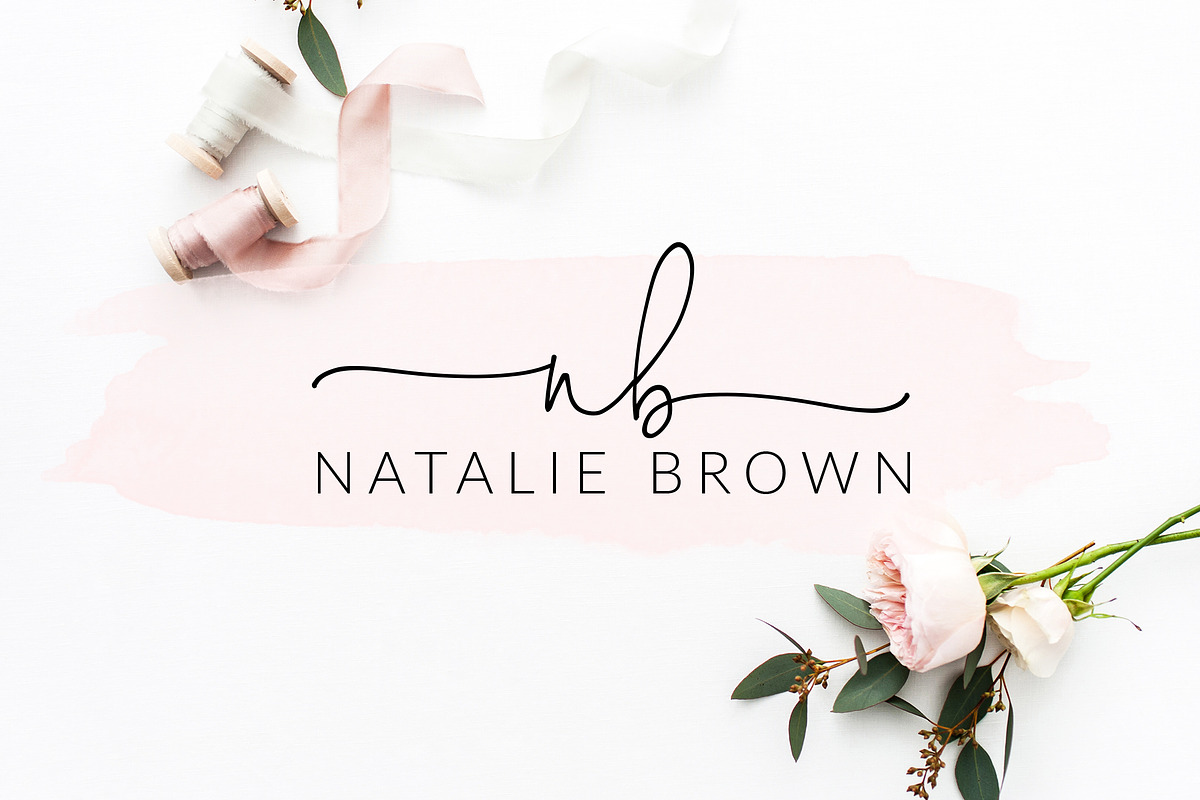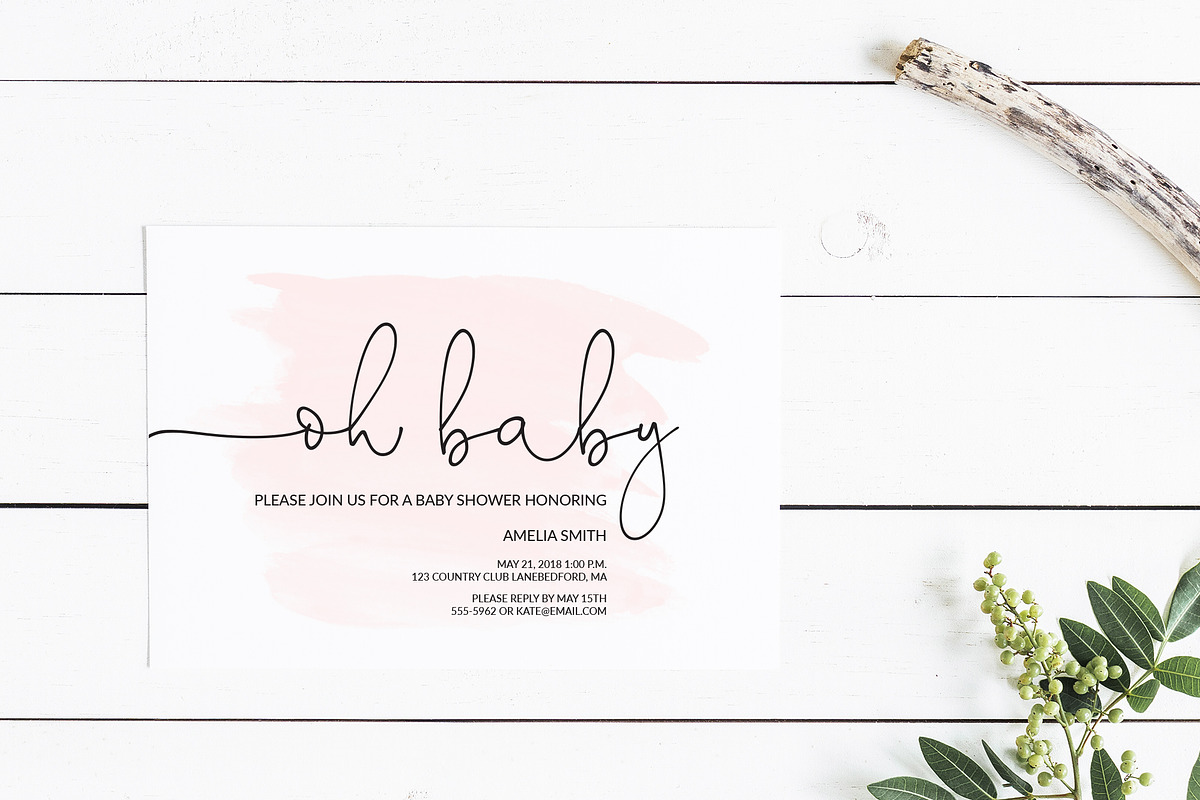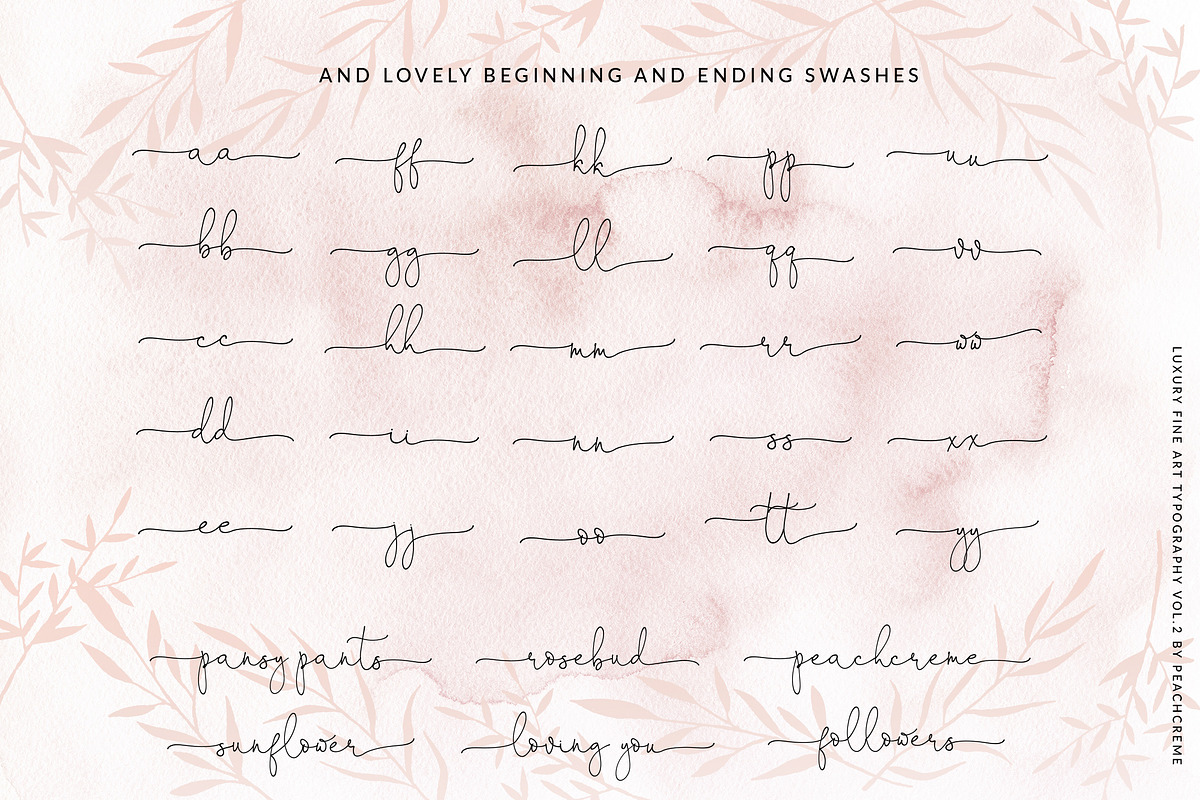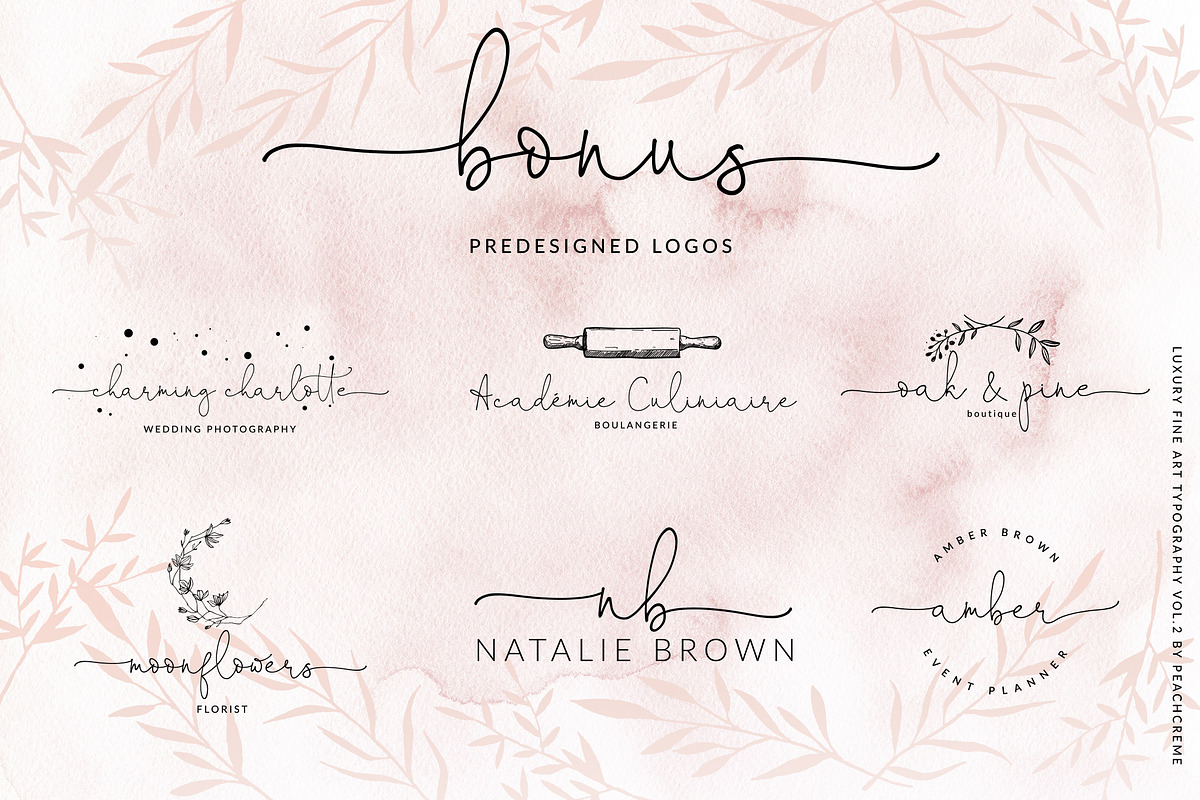
Oh Darling- Ethereal Script Font
LUXURY FINE ART TYPOGRAPHY VOL. 2
“Oh Darling” is a crème de la crème hand-lettered calligraphy font with ethereal, adorable touch. It is perfect for branding, event invites, lovely Instagram posts. It includes 6 bonus predesigned logos. You will love them!:)
“Oh Darling” includes full set of charming uppercase and lowercase international letters, numerals, a large range of punctuation and ligatures. All lowercase letters include beginning and ending swashes, giving realistic hand-lettered style.